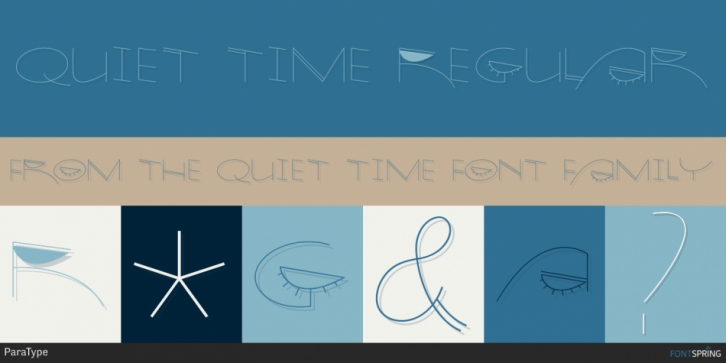
Publisher: ParaType
Designed by Elena Kolesnikova, Quiet Time is a novelty font published by ParaType.
The font was developed as a part of a corporate identity project for a pillow shop on the base of existing logo. It’s an attempt to reflect the space of a dream—virtual reality where objects don’t have solid shapes, but present just hardly noticed disappearing contours. This idea determines the design of letters that resemble illustrations rather then alphabetical symbols and are based on ultra thin stems. The font was designed by Elena Kolesnikova and released by ParaType in 2009.
Font Family: Quiet Time Regular